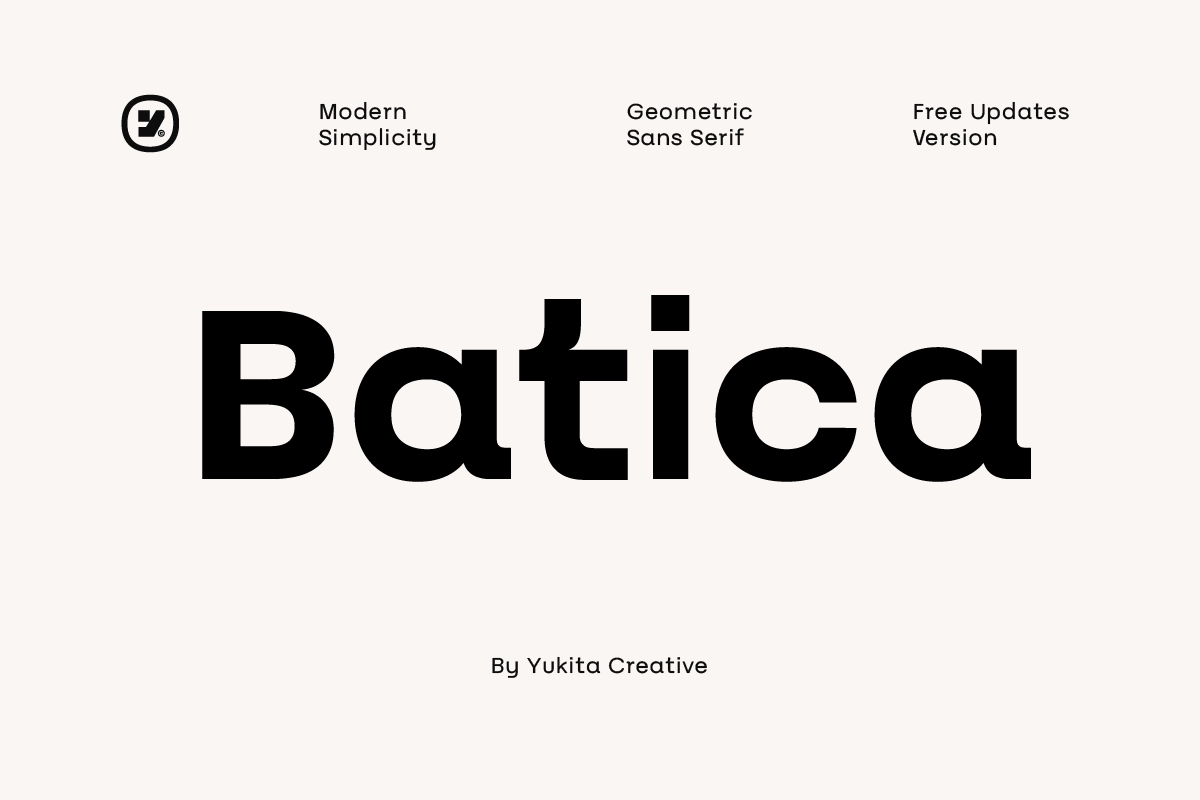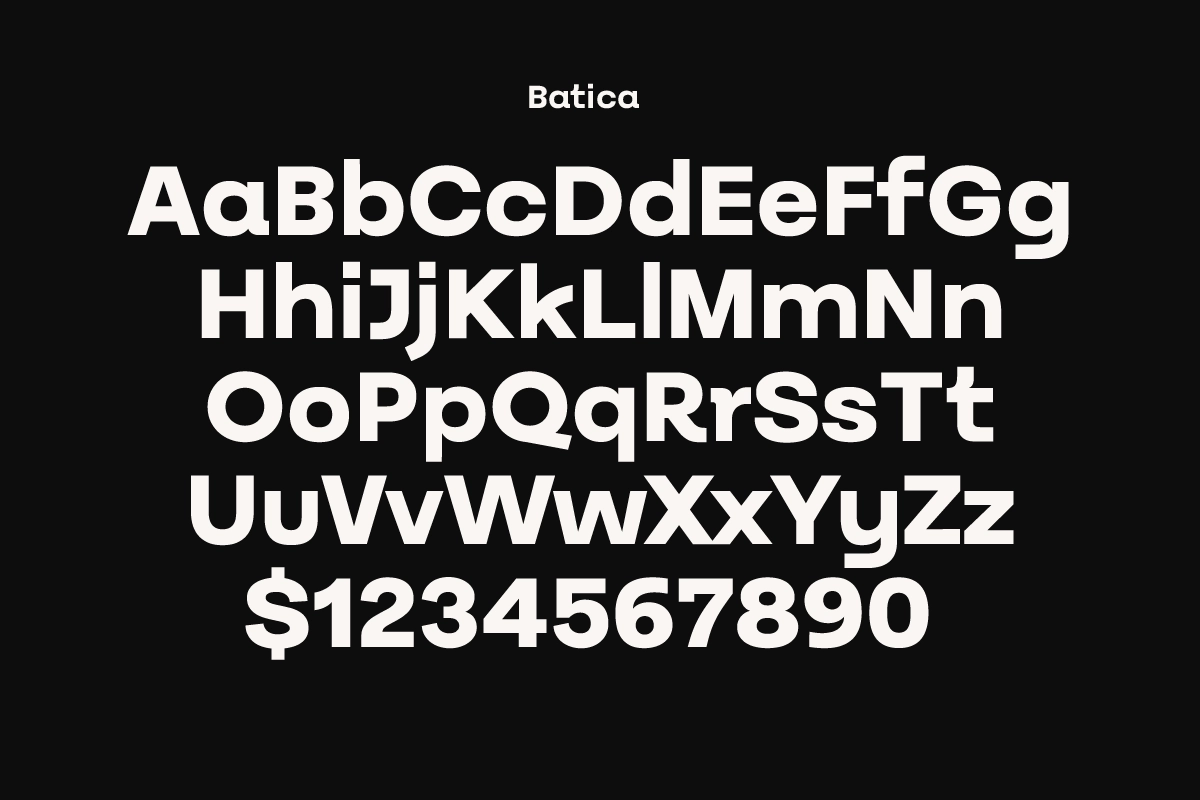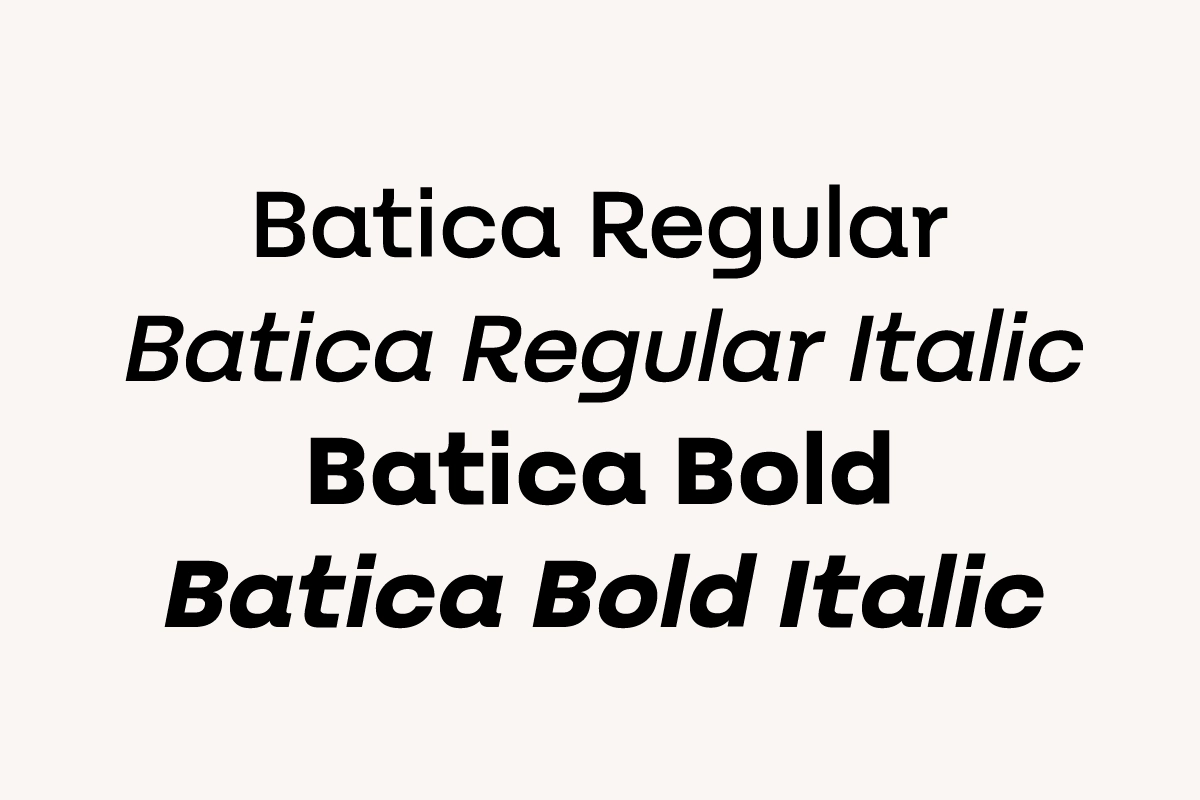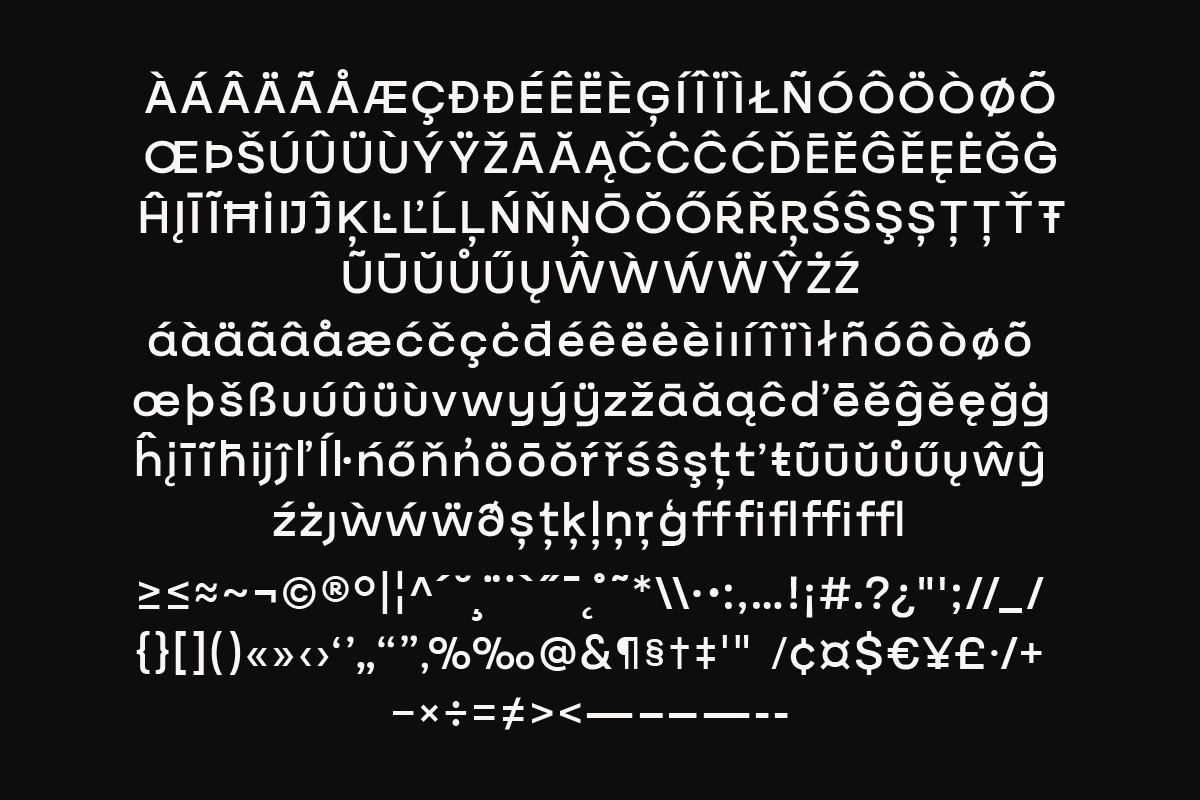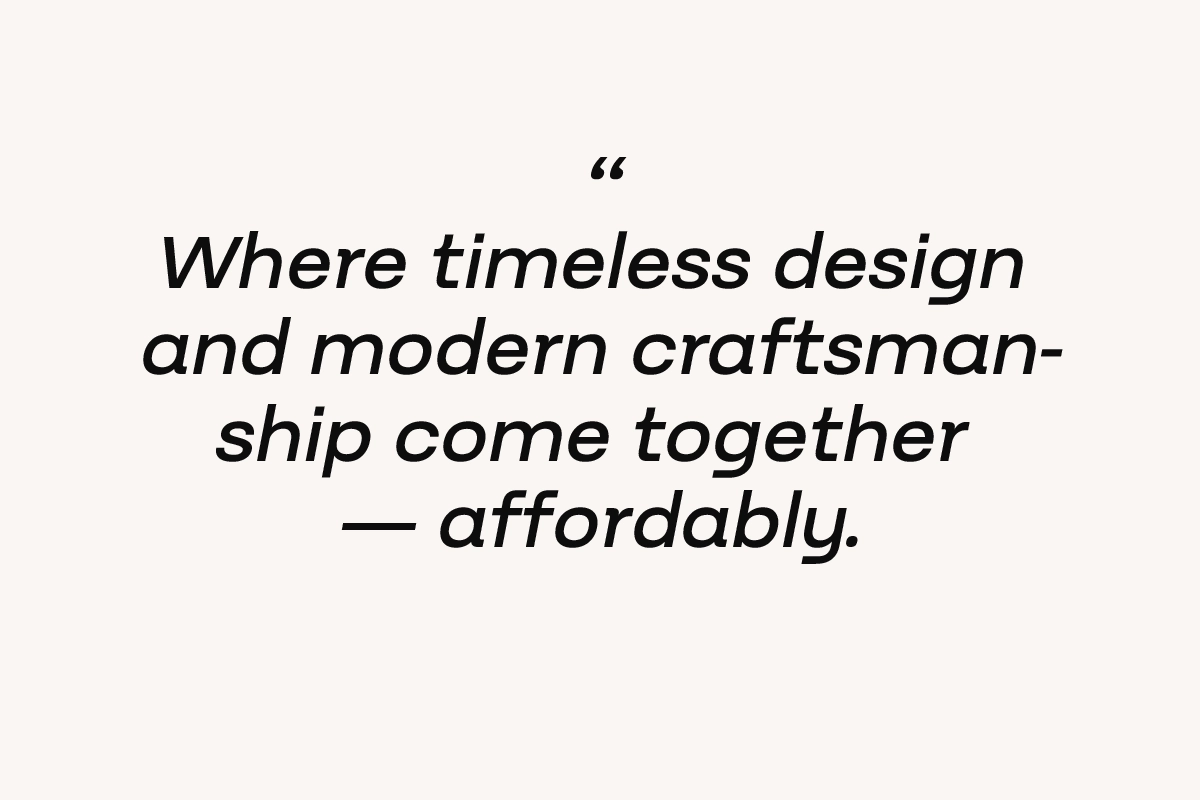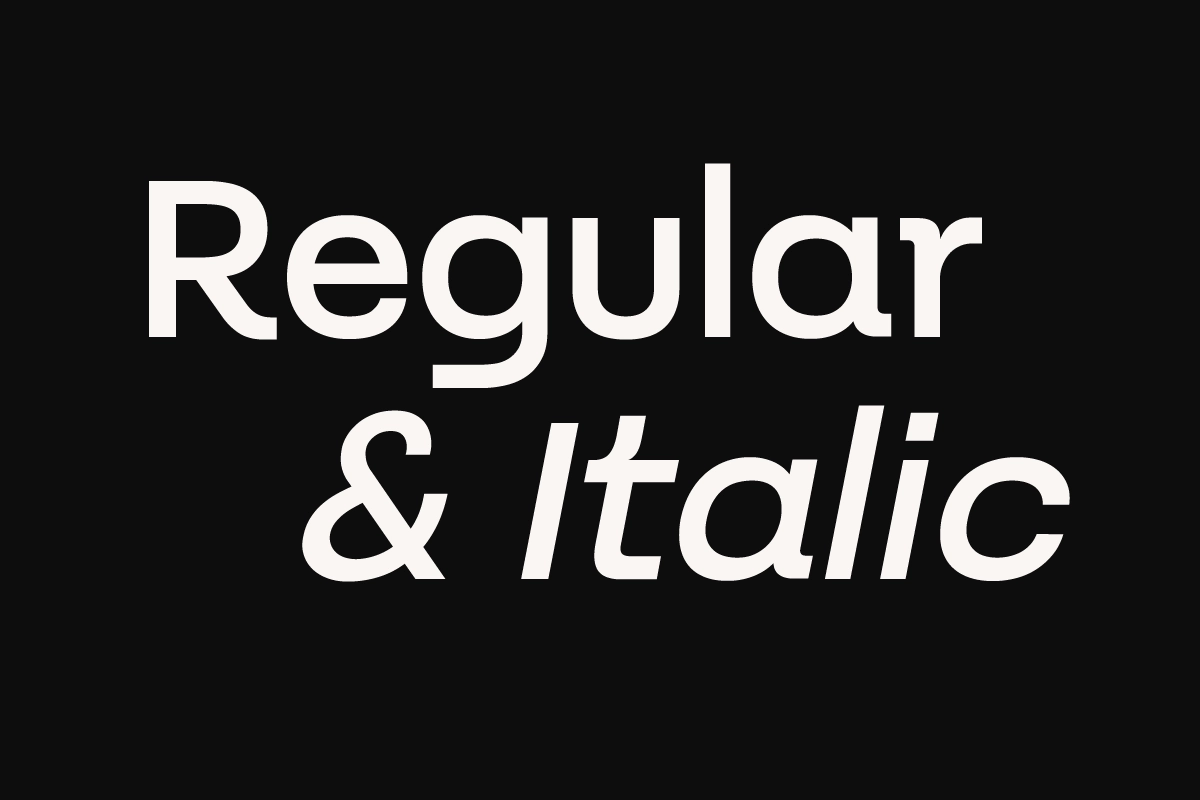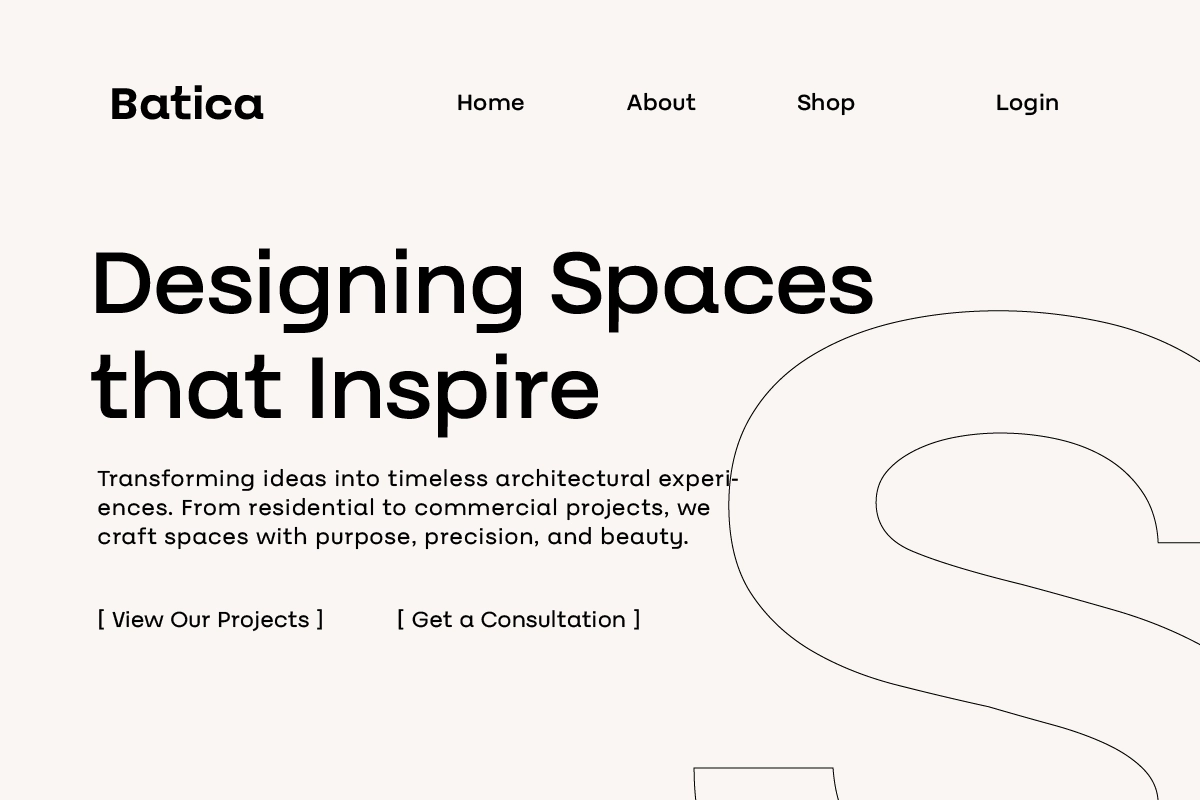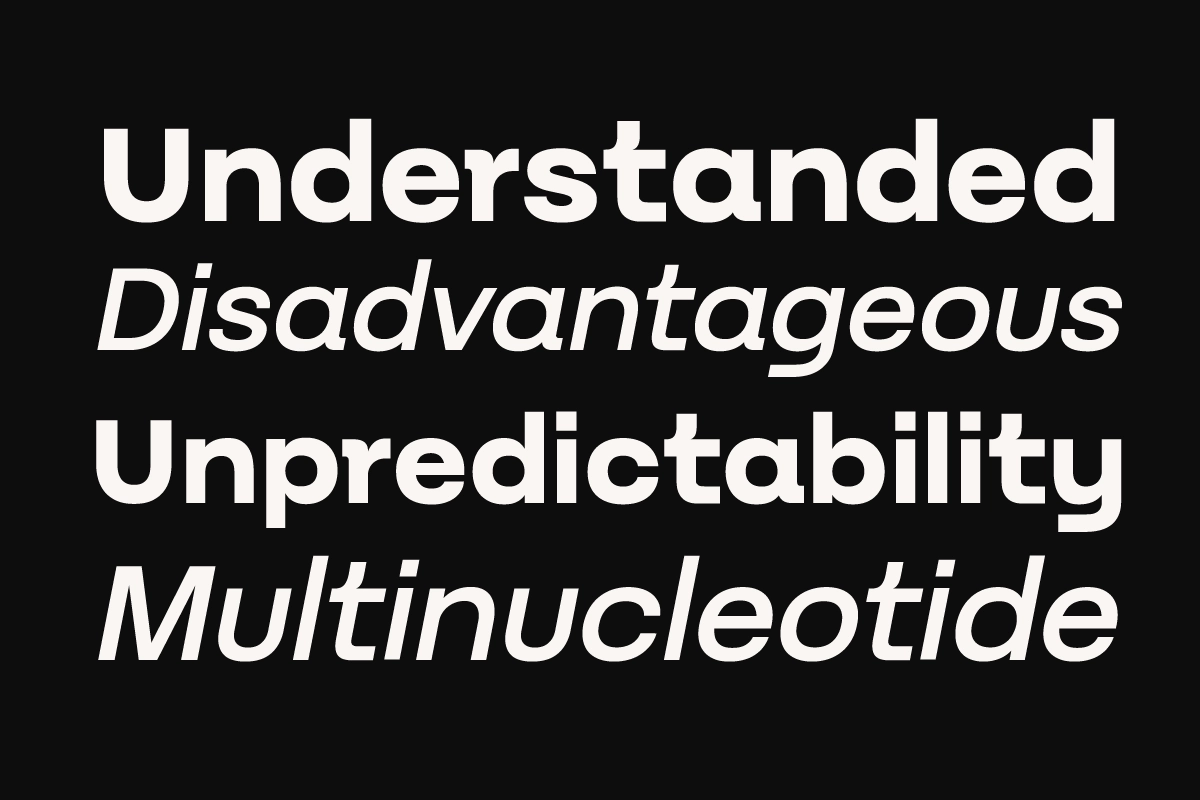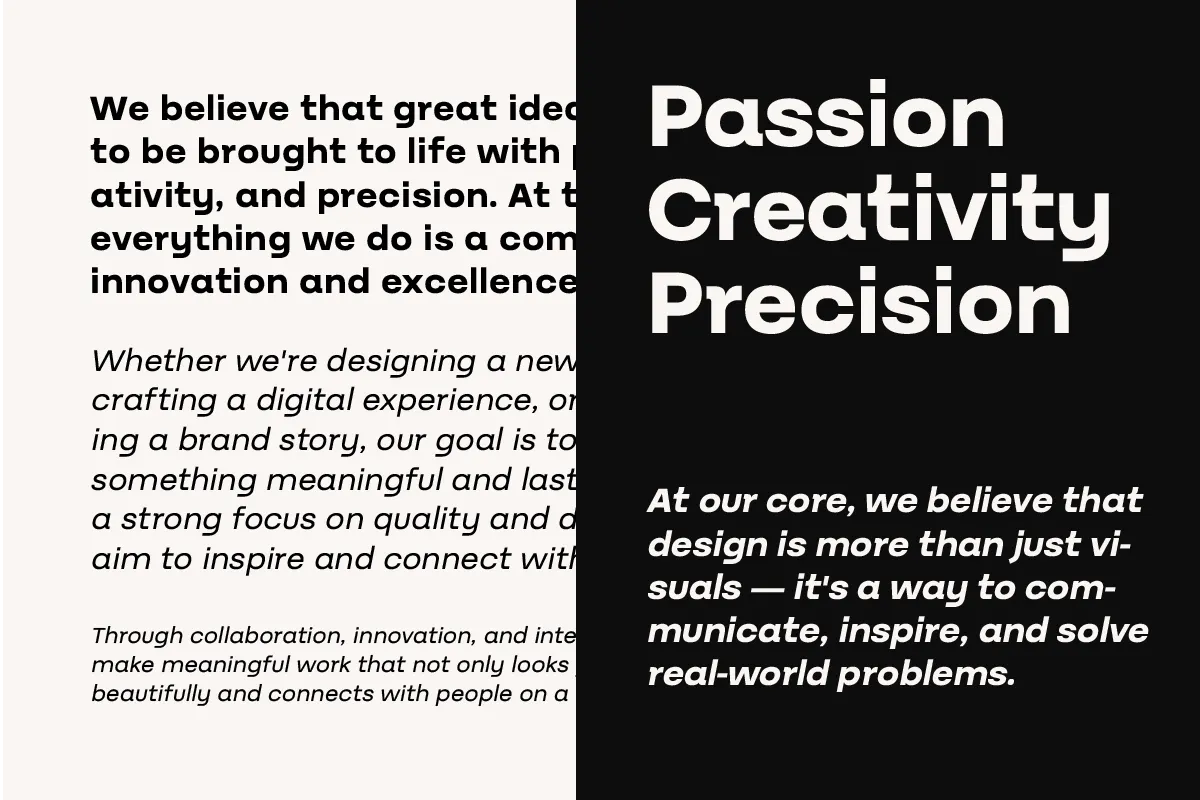
Batica – Modern Geometric Sans Font
This geometric sans serif has a rounded, steady rhythm and a clear visual structure that reads fast in both display and text settings. The letterforms are pared back but not plain, with balanced proportions and enough character to give layouts a sharp editorial voice.
Batica covers brand identities, logos, packaging, website headers, app interfaces, editorial pages, presentation decks, posters, social media graphics, campaign materials, signage, and more. The family includes upright and italic styles with regular and bold weights, which gives Batica a practical range for hierarchy, emphasis, and day-to-day design work.
• 4 styles: Regular, Italic, Bold, Bold Italic
• Geometric sans-serif construction